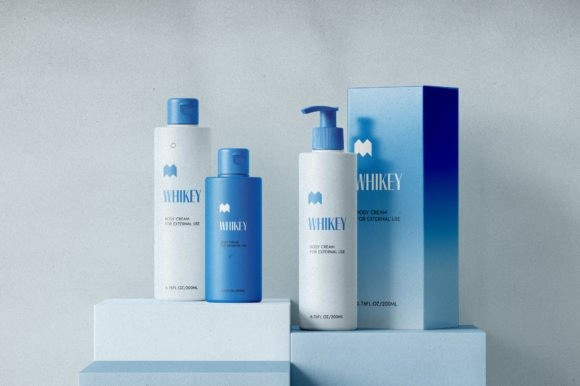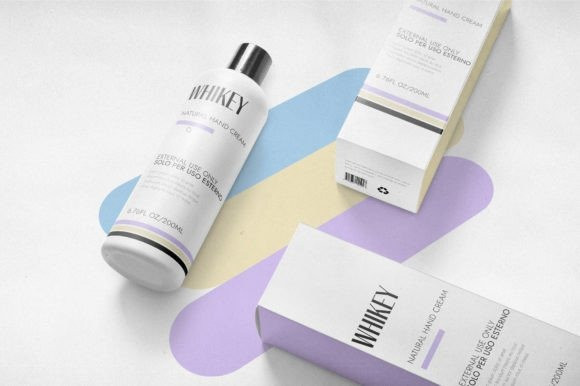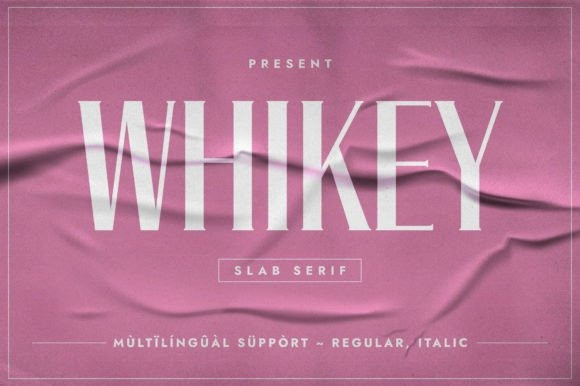
Whikey Font
Whikey Font is an elegant bold and high-contrast slab serif typeface. Its amazing glyph construction renders it a valid choice when it comes to designing elegant themes, a project that requires some clean touch yet an element that grabs the viewer’s attention. Use it confidently in your creations, and you will notice how many marvelous results you can get.